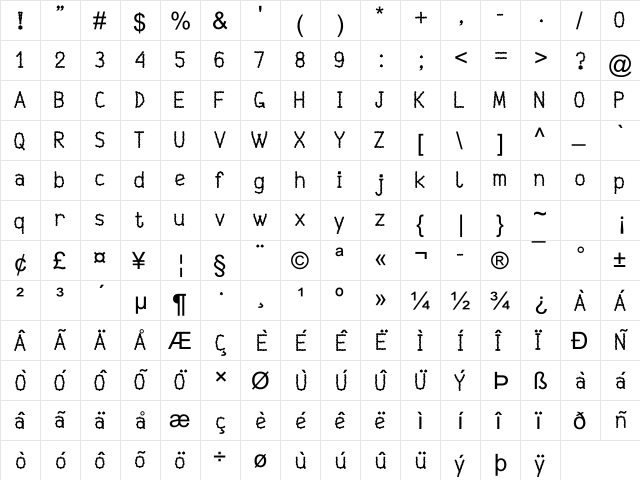
Vipashriftina150 Regular
| Foundry | Lab-room for viper78 Clerical, Vlad Viperov |
| Designer | Lab-room for viper78 Clerical Office - viper78 aka Vlad Viperov, Volgograd 2013 |
Design Context for Vipashriftina150 Typeface
Vipashriftina150 offers clean, dependable letterforms without strong stylistic allegiance, making it a practical choice for designers who need flexibility.